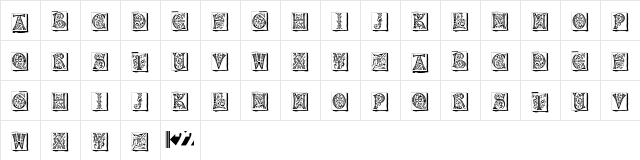
Napoli Initials Alt Regular
| Designer | Toto |
Design Context for Napoli Initials Alt Typeface
Napoli Initials Alt is a composed and adaptable typeface that performs quietly and consistently across a wide range of design contexts.